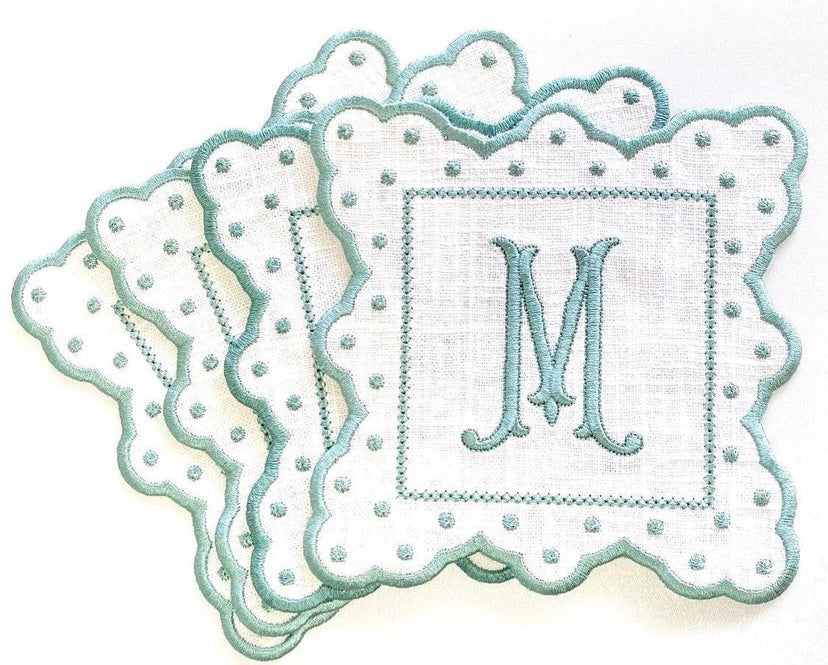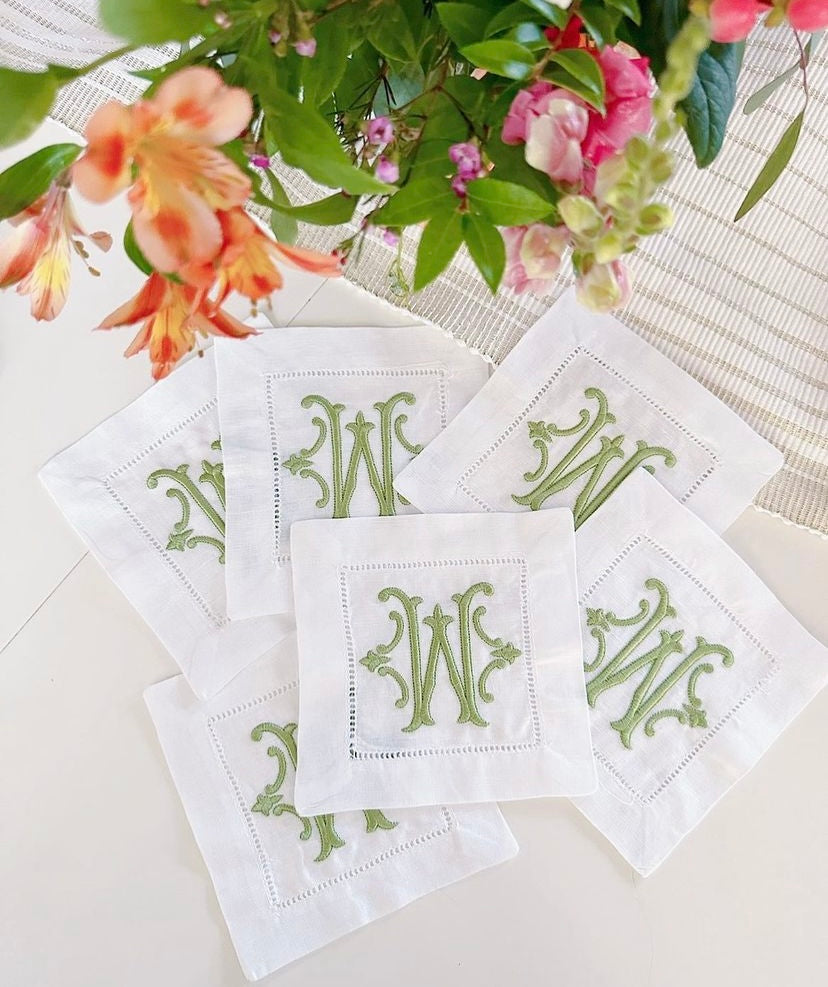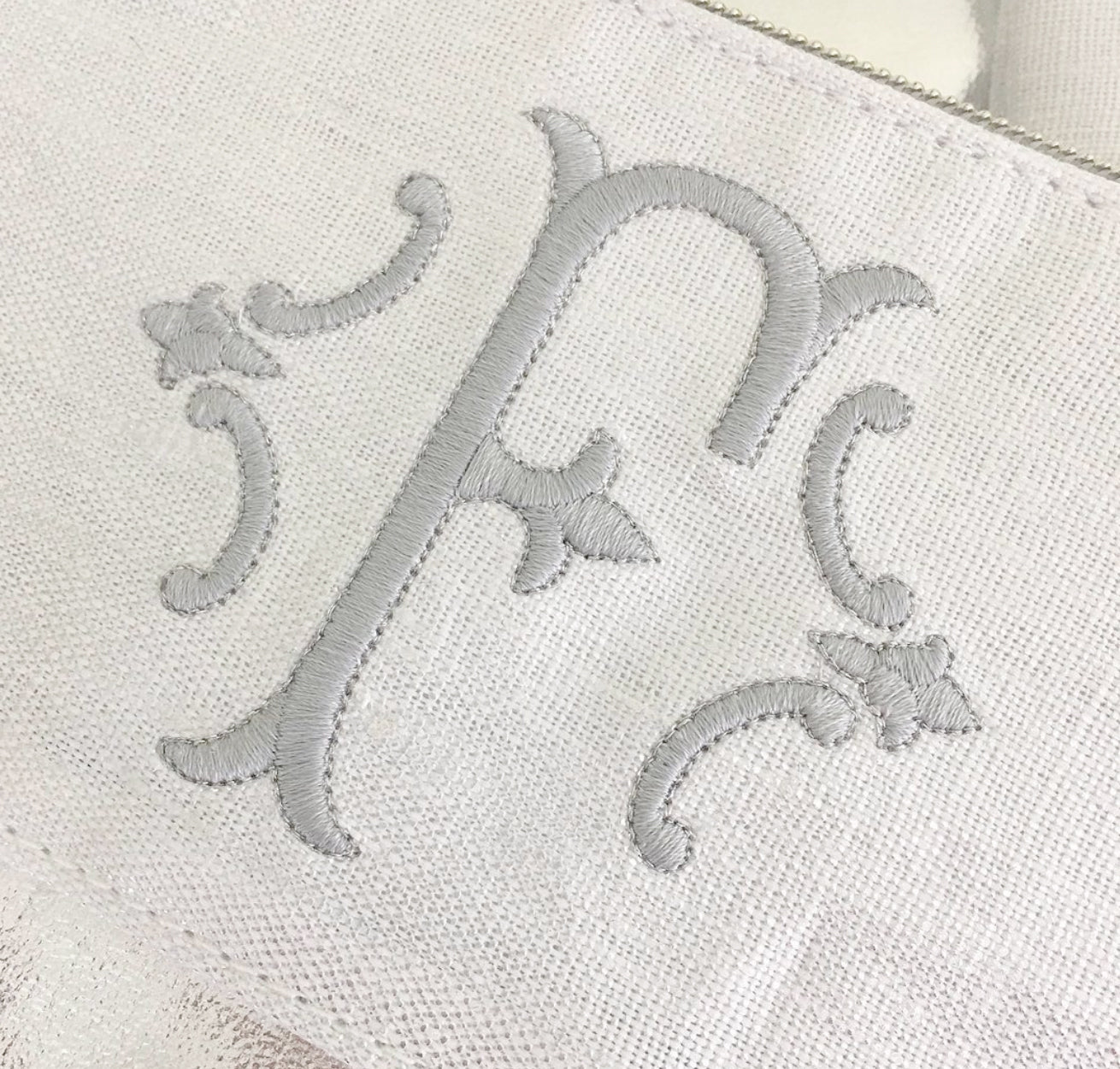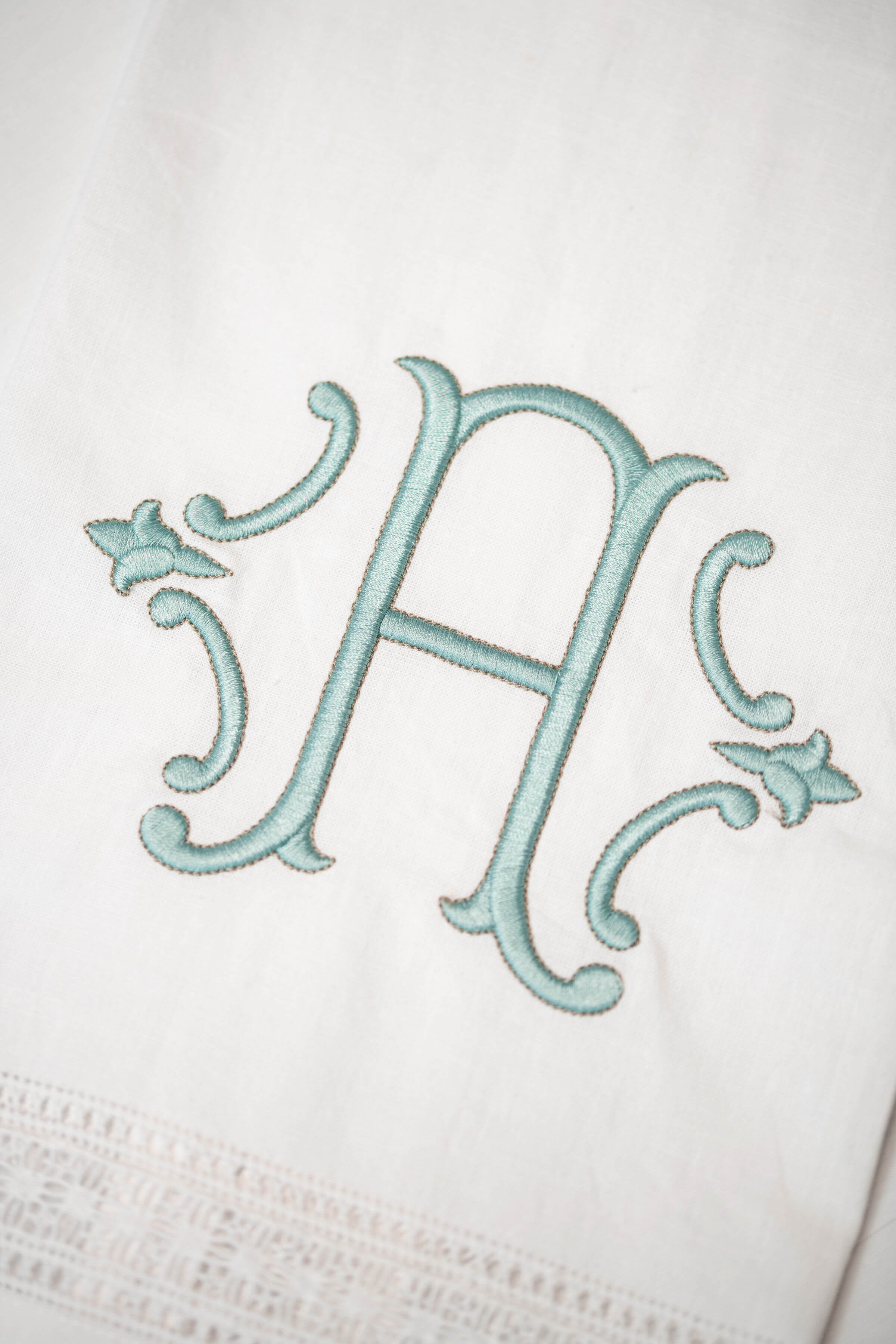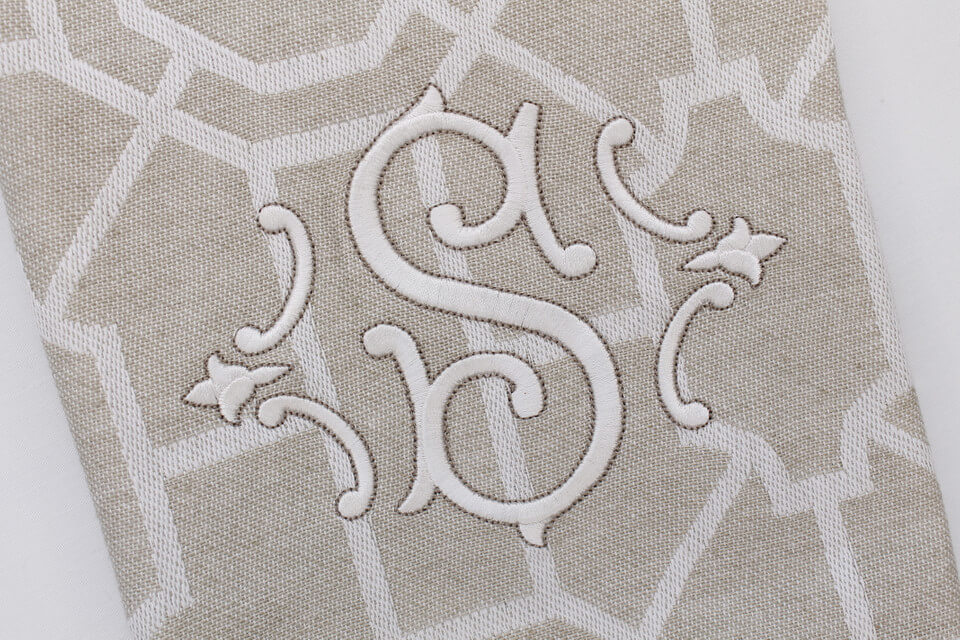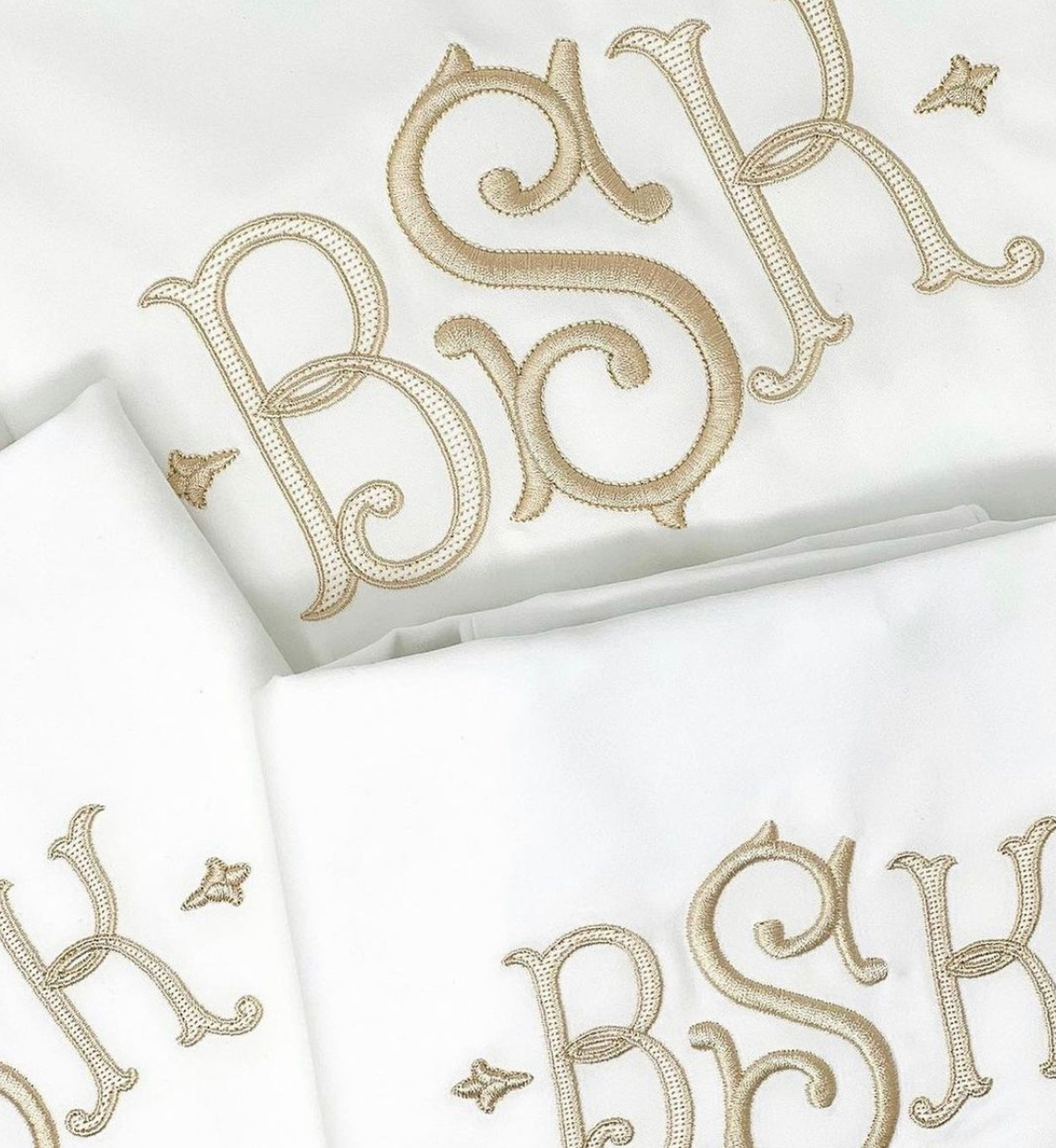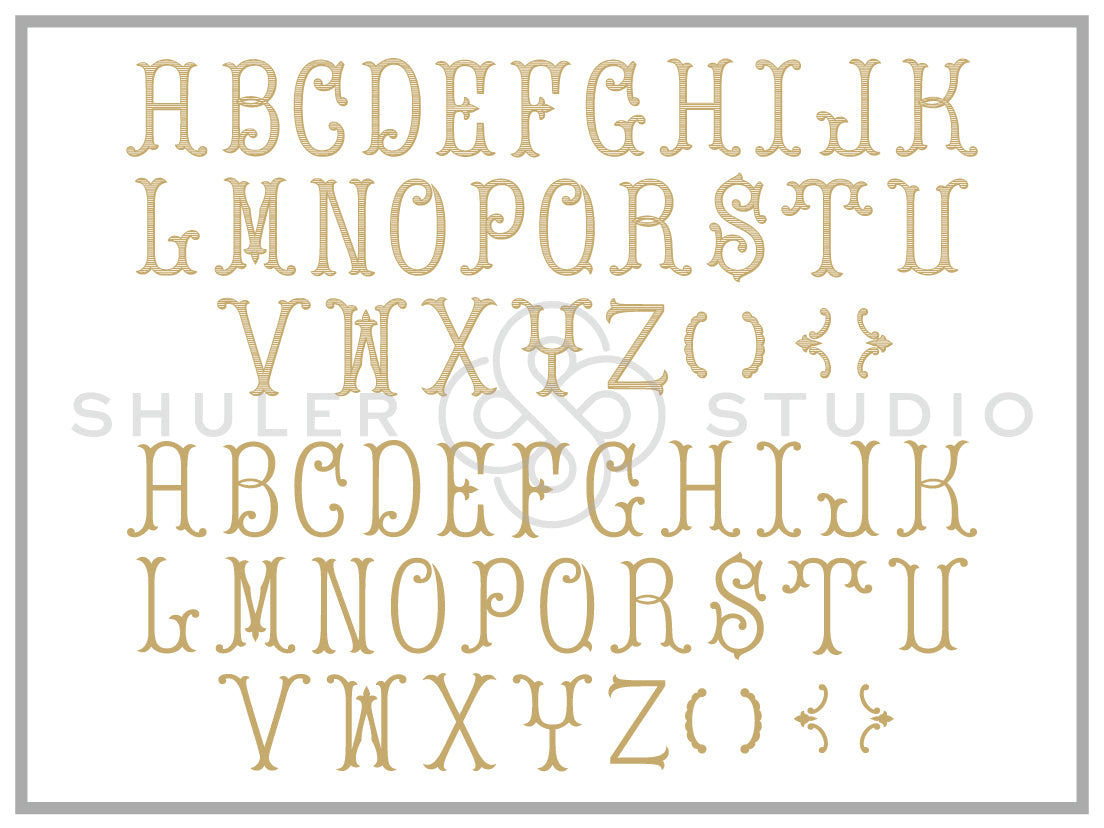
Single Romanesque Font for Embroidery
Single Romanesque is a beautiful collection of 26 solid letters & 26 line-filled letters with 2 ornament designs that complement each letter. All designs are color-separated.
Perfect for embroidery, the careful attention in the digitization of each design makes personalization unique and beautiful!